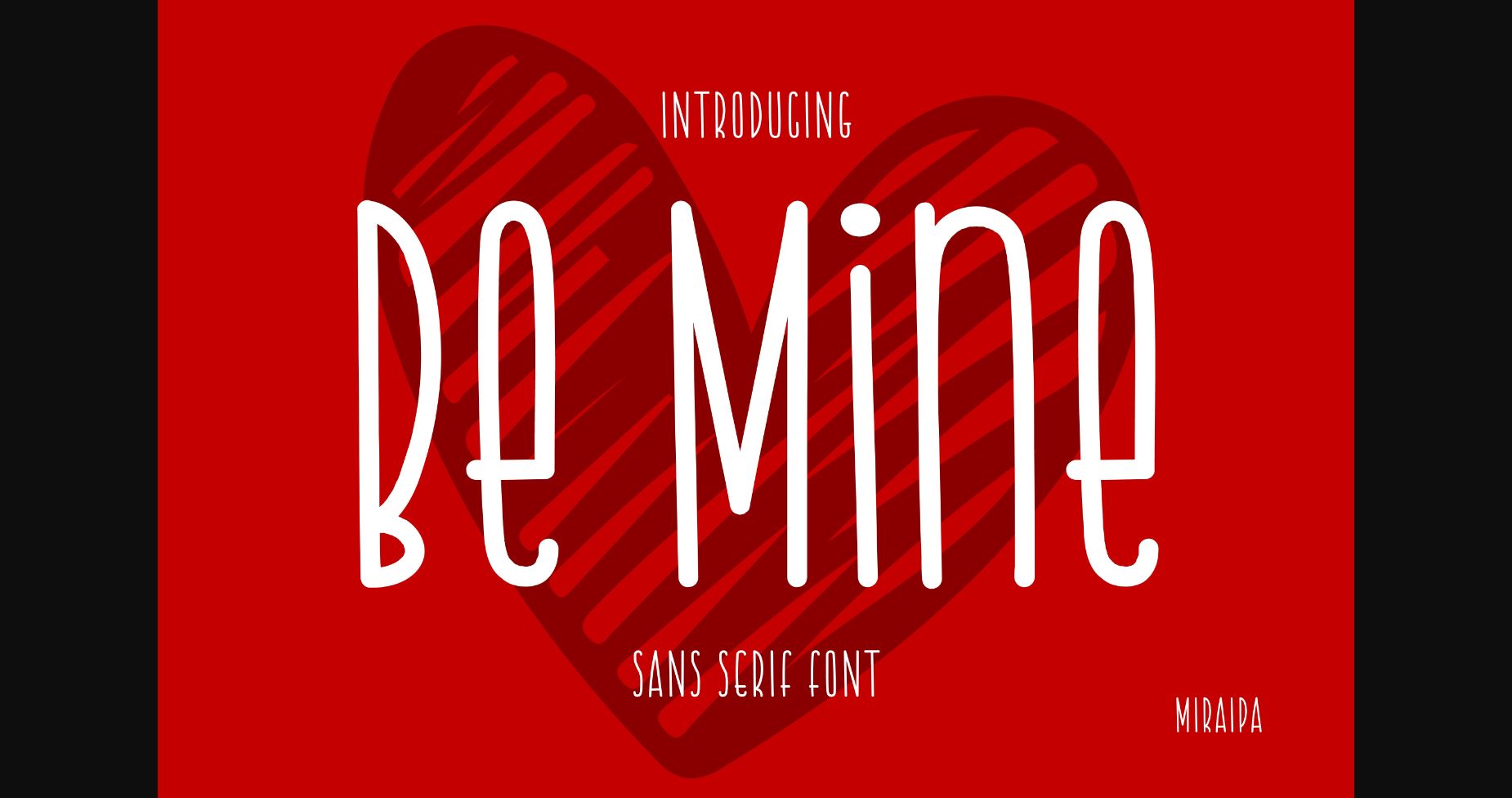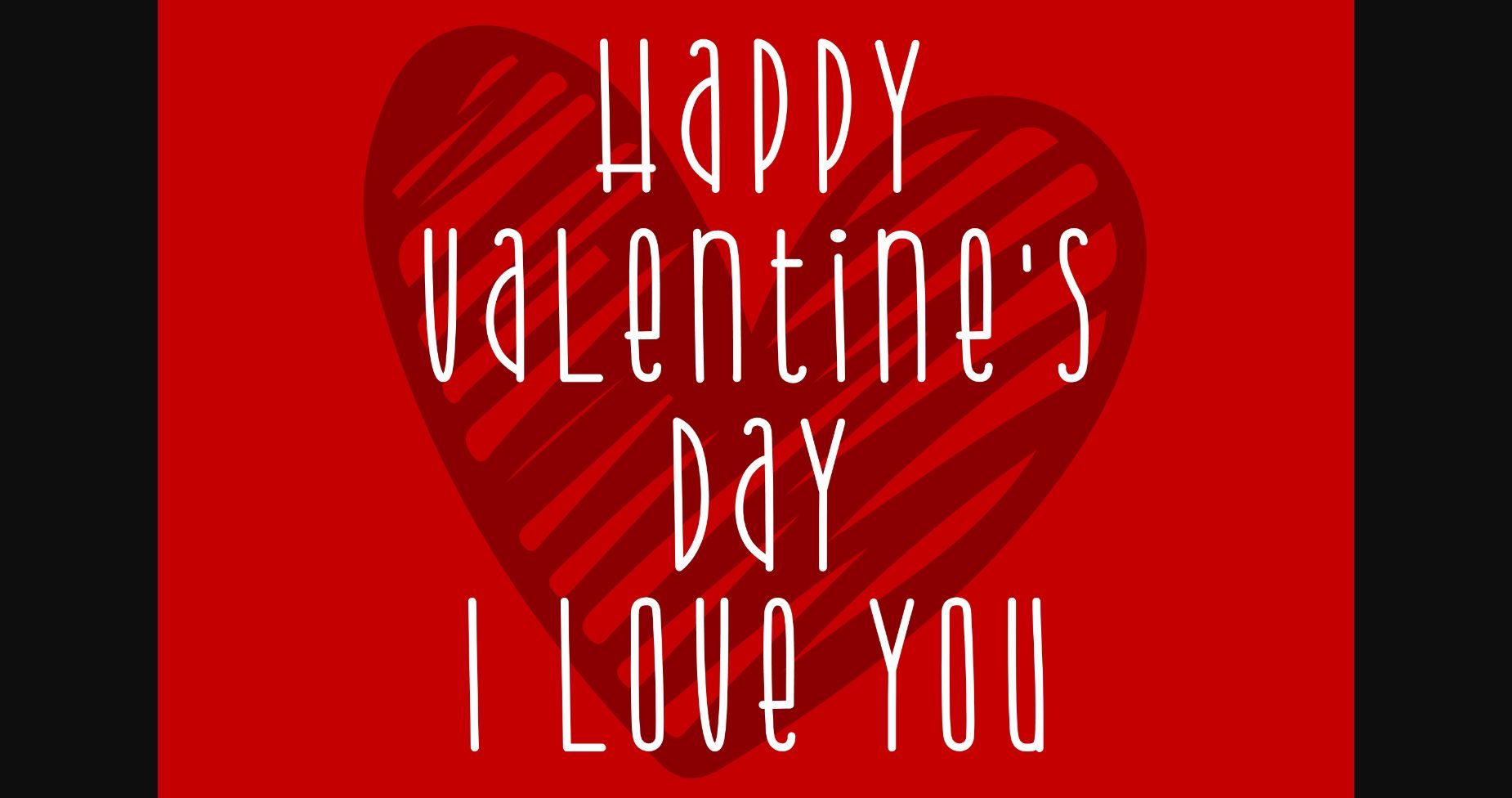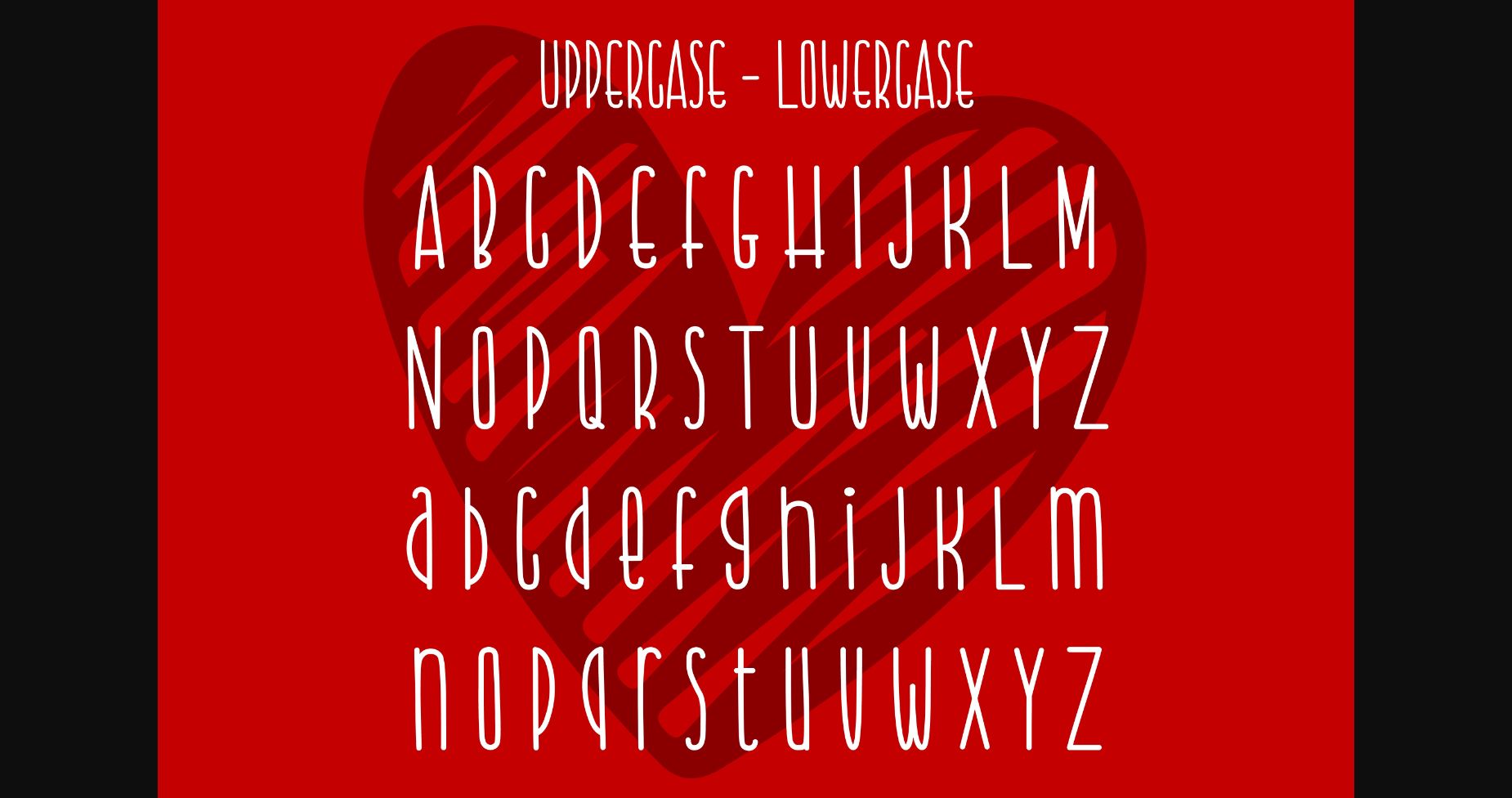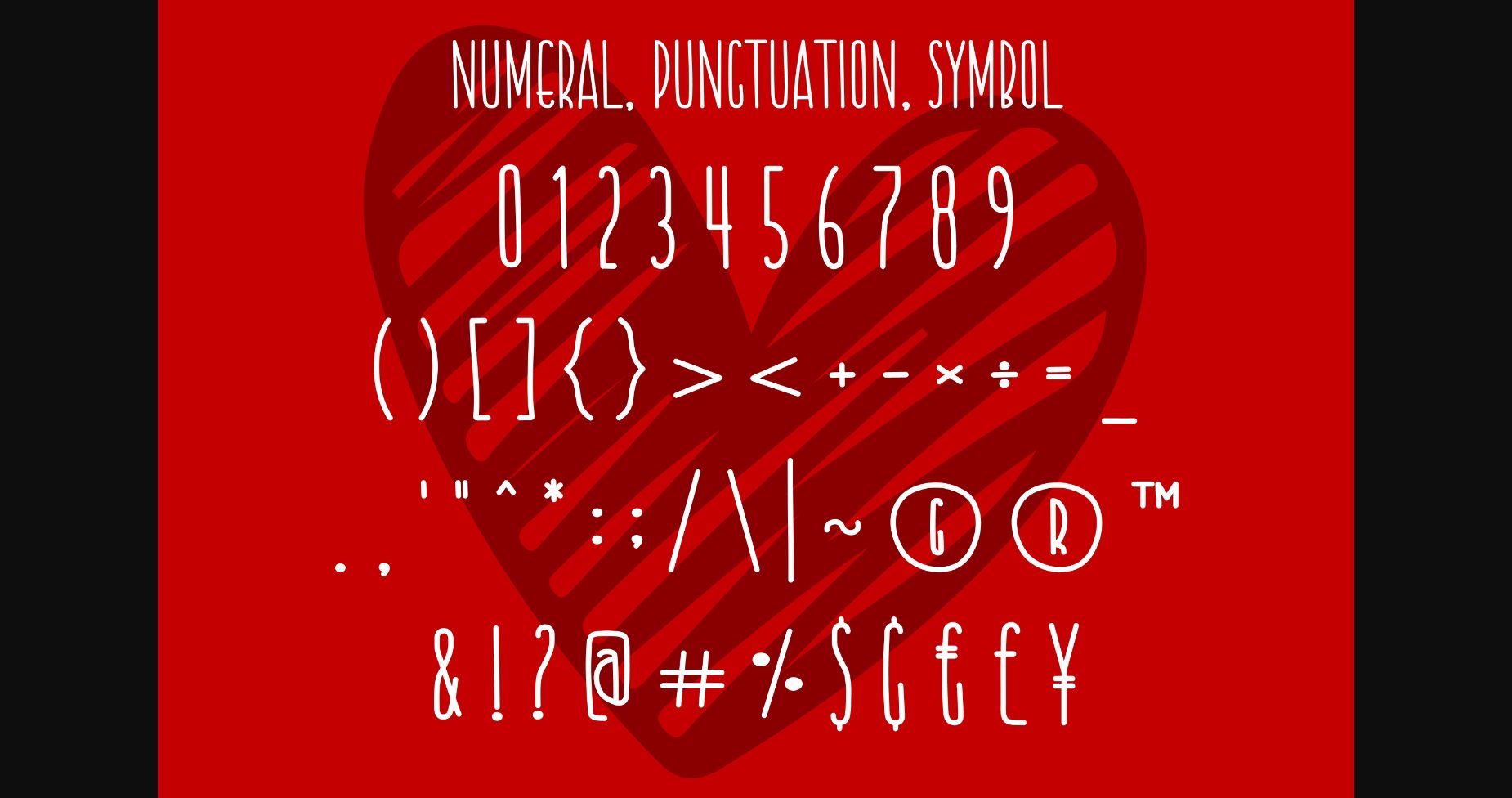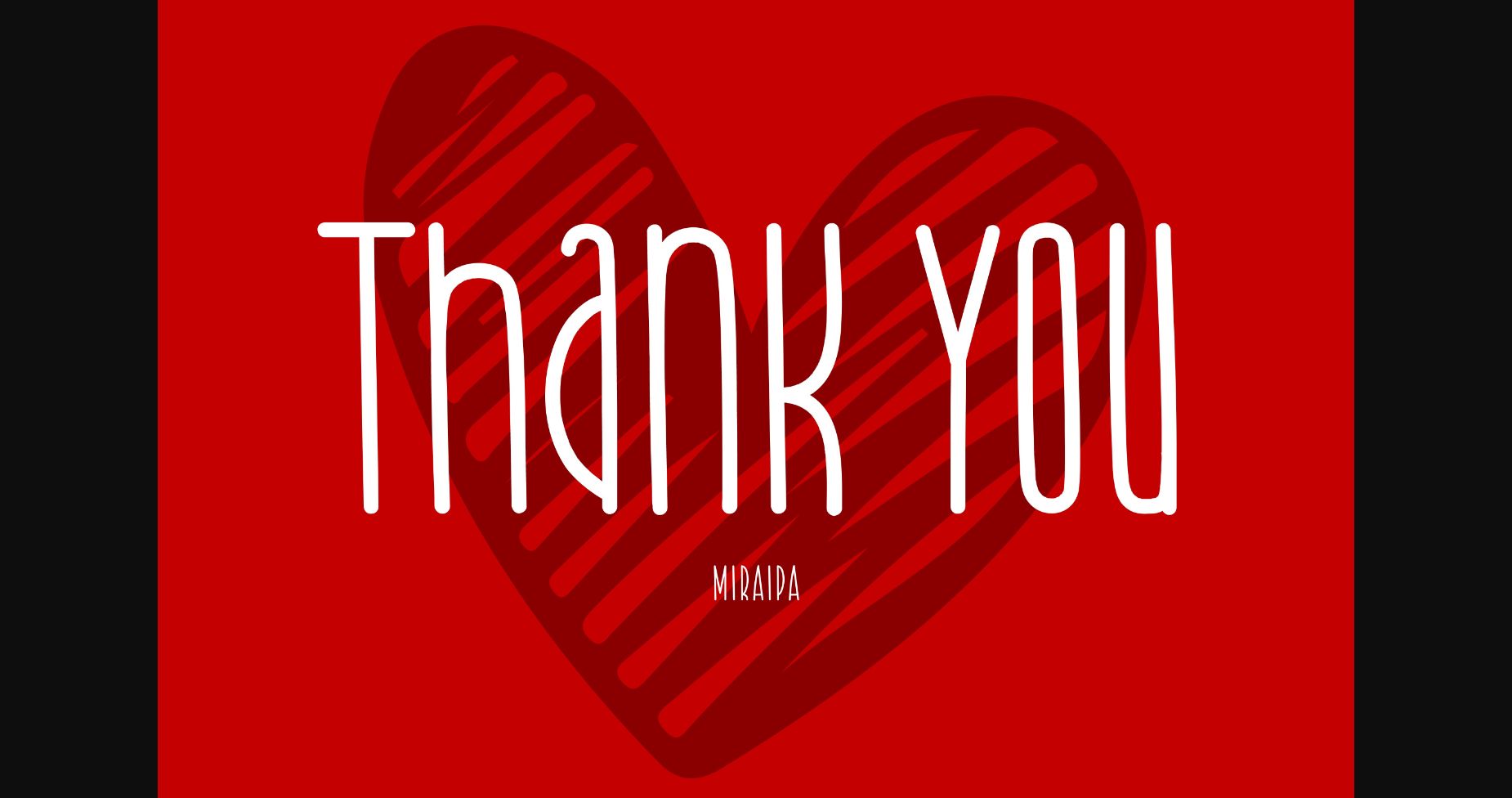
Be Mine Font
About Be Mine Font
Be Mine is a friendly and cute handwritten sans serif font. Incredibly versatile, this font is suitable for a wide spectrum of applications.